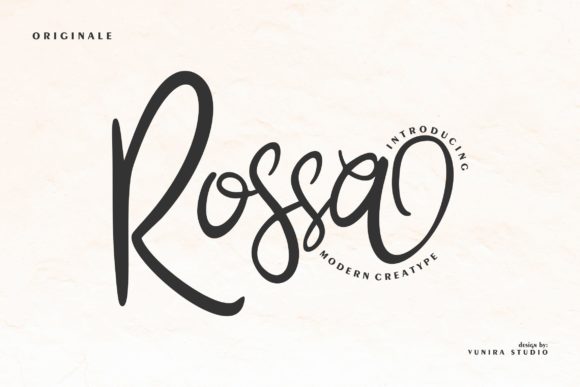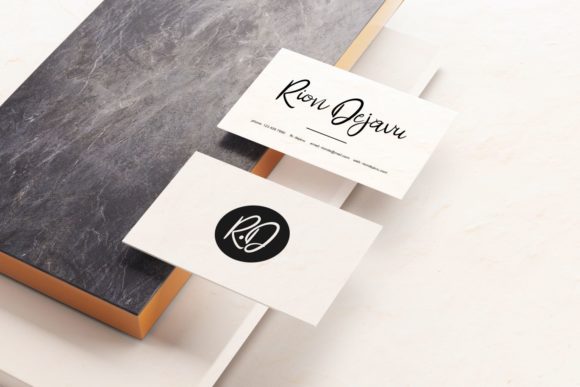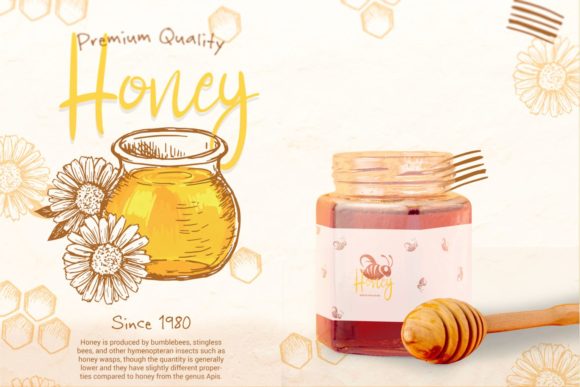
About Rossa Font
“Rossa” is a stylish handwritten font that captivates with its remarkable versatility. With its unique and eye-catching design, this font is a fantastic choice for creating a wide range of captivating design projects, from elegant wedding invitations and stunning stationary art to engaging social media posts.
By incorporating “Rossa” into your designs, you’re embracing a font that effortlessly adapts to various contexts, adding a touch of sophistication and charm. Its stylish letterforms and fluid strokes make it an ideal option for projects that require an element of visual allure and aesthetic appeal.
The adaptability of “Rossa” lends itself well to diverse applications, making it suitable for branding materials, quotes, headlines, logos, and any other design that aims to make a memorable impact. Its ability to enhance the visual aesthetics of your projects makes it an invaluable tool in your creative toolkit.
As you explore the possibilities of “Rossa,” you’ll find that it transforms your design concepts into stunning and captivating pieces of art that resonate with your audience.
Incorporate “Rossa” into your projects with enthusiasm, and you’ll discover how it elevates your creations to new levels of beauty and elegance.
In conclusion, “Rossa” is a stylish handwritten font that embraces versatility and charm. Embrace its captivating style and allow it to be the font that brings a touch of elegance and allure to your wedding invitations, stationary art, social media posts, and various other design endeavors.